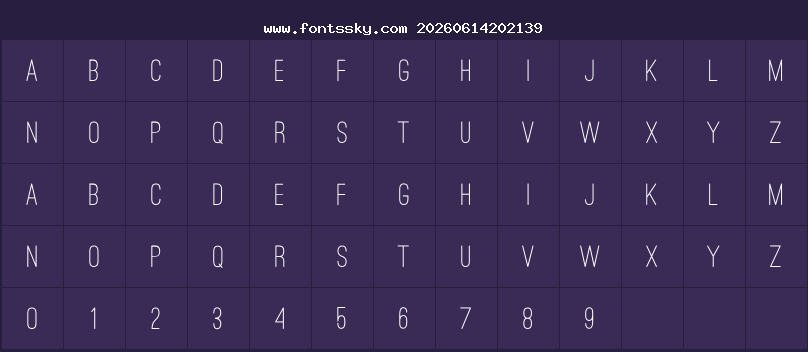
Ostrich Sans Rounded Medium Preview
• Font Name: Ostrich Sans Rounded Medium
• Full Font Name: Ostrich Sans Rounded Medium
• PostScript Name: OstrichSansRounded-Medium
• Designer: Tyler Finck
• Manufacturer: The League of Moveable Type
About Ostrich Sans Rounded Medium.otf
Ostrich Sans Rounded Medium.otf is a modern, elegant sans-serif font designed for ultimate readability and visual harmony. Perfect for branding, headlines, web design, and print materials.